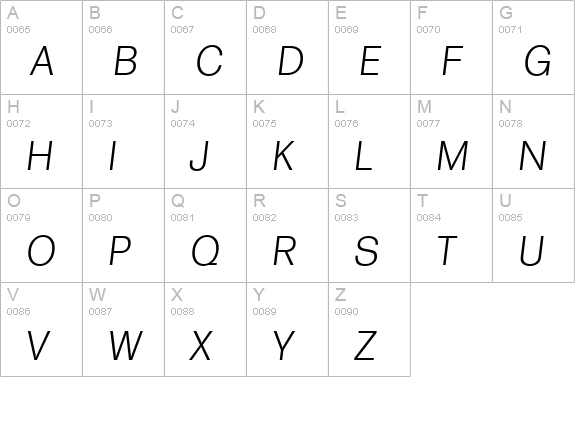
FormulaSerial-Light-Italic is a refined, elegant, italic variant in the FormulaSerial typeface family \xE2\x80\x94 well suited to elegant body text, refined sub-headings, and luxury branding.
Introducing FormulaSerial-Light-Italic font, a sleek and modern typeface designed to add a touch of elegance to your projects. This unique font features a light weight and italic style, making it perfect for adding a sophisticated and refined look to any design. Whether you're working on a website, brochure, poster, or any other creative project, FormulaSerial-Light-Italic font will help your text stand out with its stylish and contemporary appearance. The graceful curves and subtle slant of this font create a sense of movement and sophistication, making it a versatile choice for a wide range of applications. Best of all, FormulaSerial-Light-Italic font is completely free to download at FontsMarket.com. Simply visit the website to access this beautiful font and enhance your designs with its distinctive style. Don't miss out on this opportunity to elevate your projects with the elegance and charm of FormulaSerial-Light-Italic font.